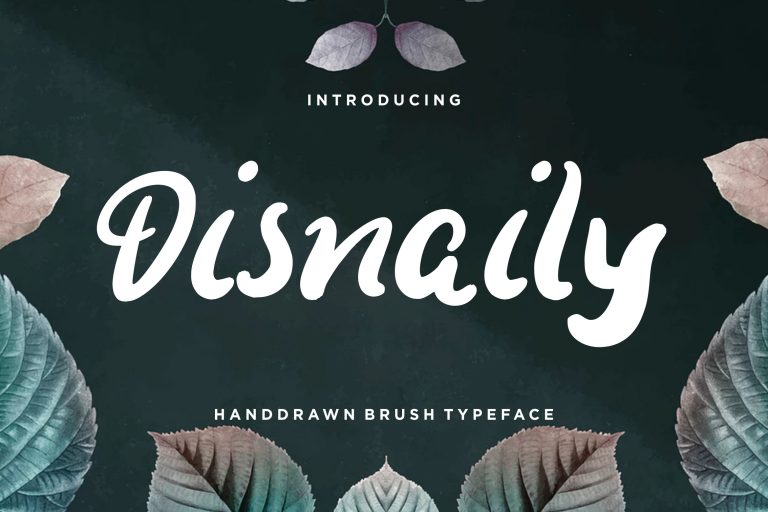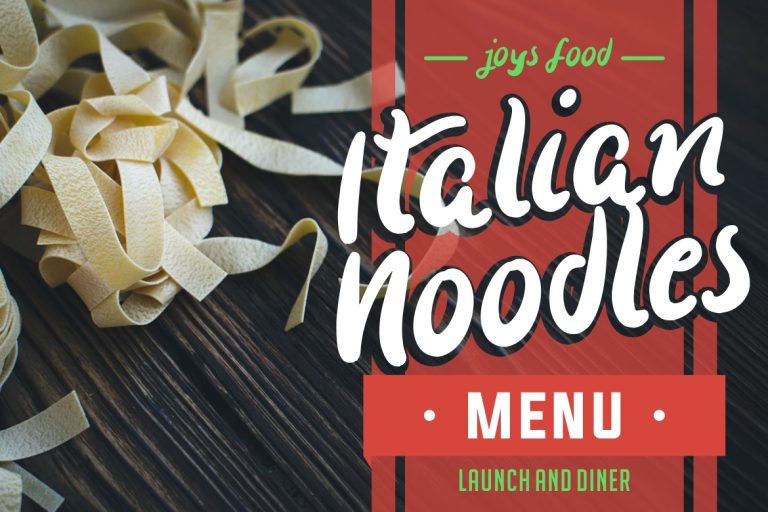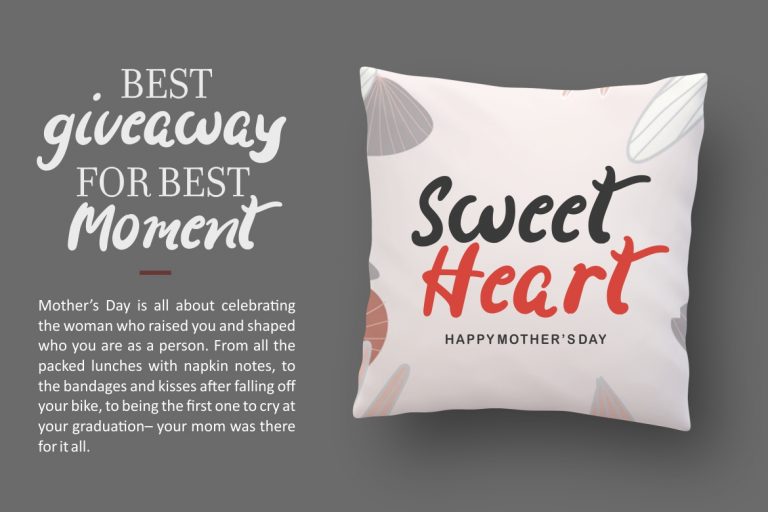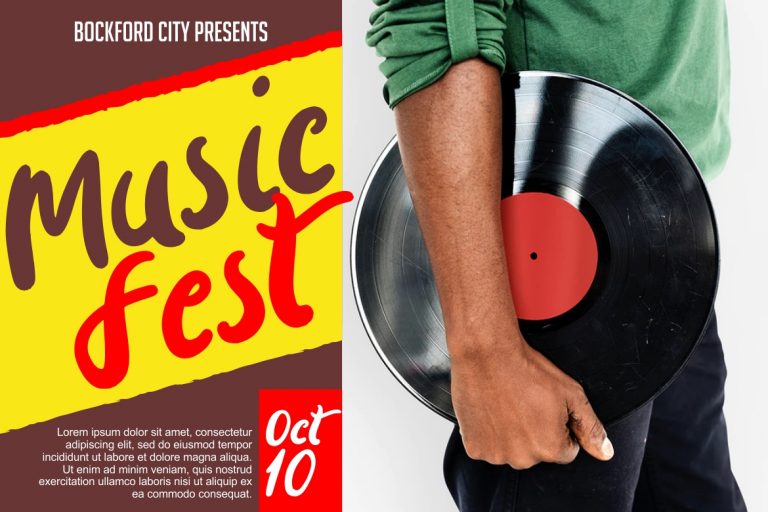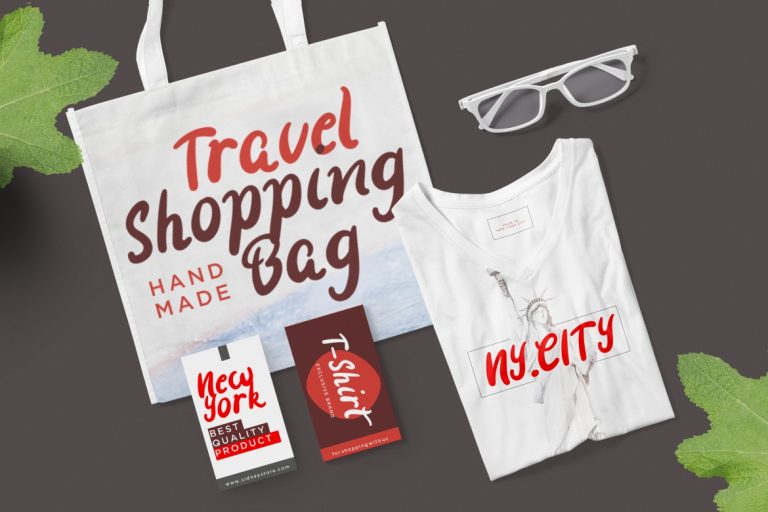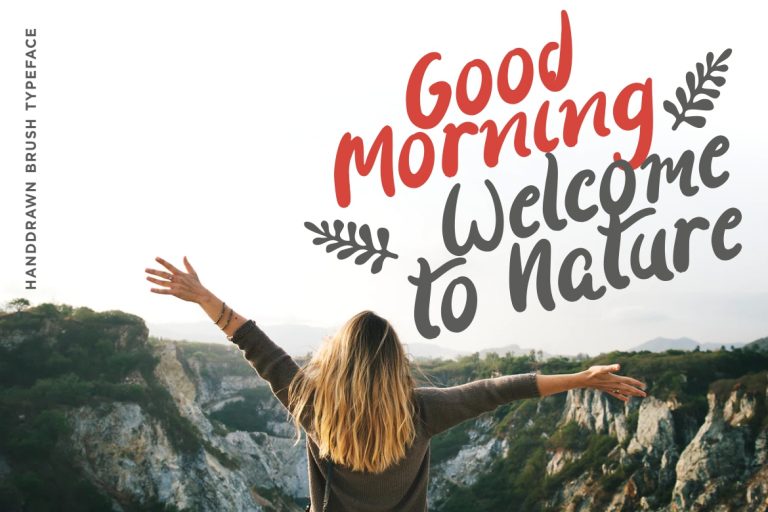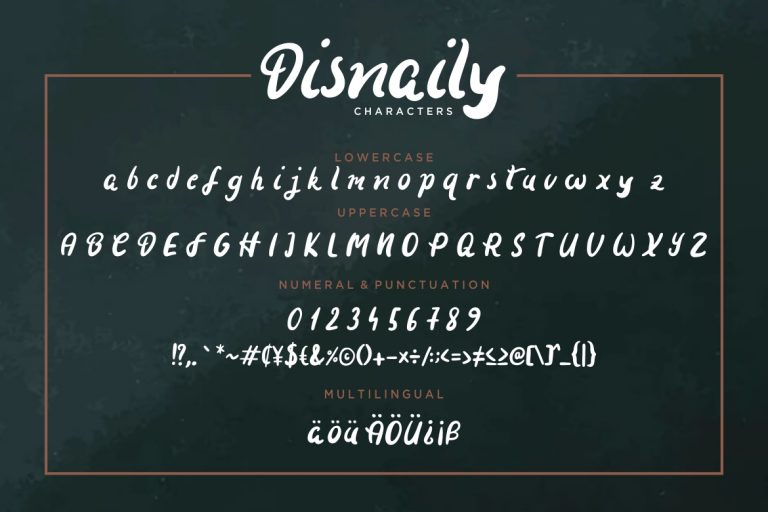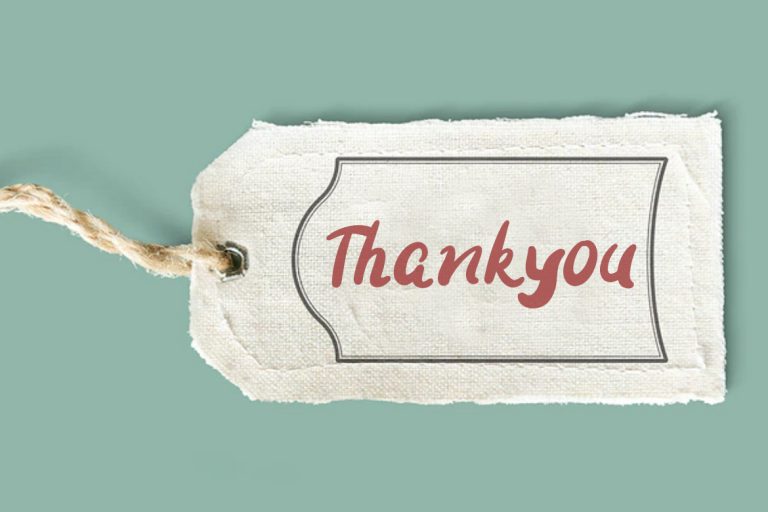
Disnaily is fun hand-drawn with brush style will looks happy, playful and fancy.
Disnaily is perfect for branding projects, logo, wedding designs, social media posts, advertisements, product packaging, product designs, label, photography, watermark, invitation, stationery and any projects that need handwriting taste.
- Fonts include multilingual support for; ä ö ü Ä Ö Ü ß ¿ ¡
Disnaily Handdrawn Brush